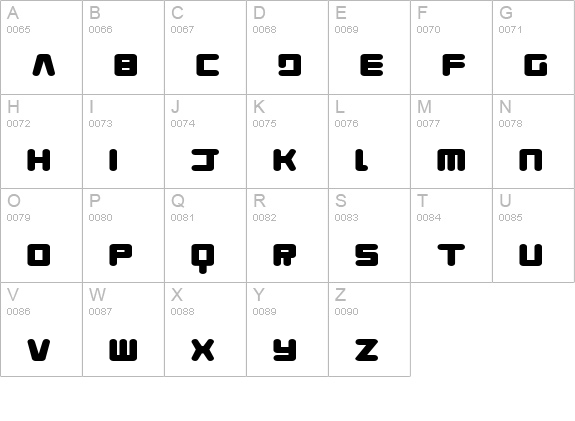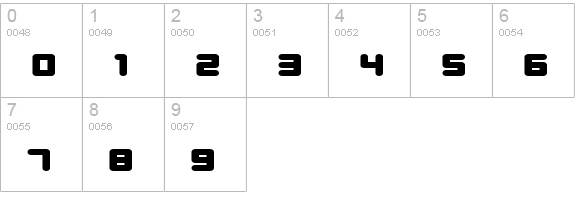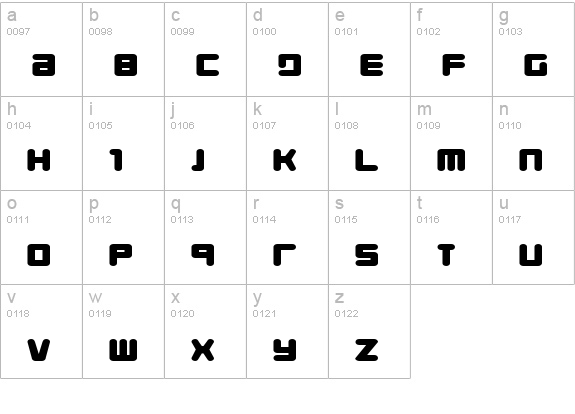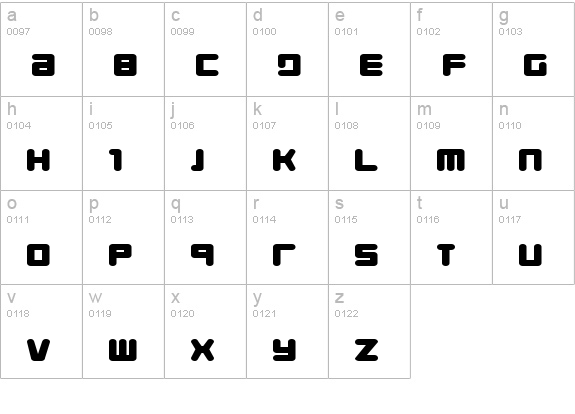
Young Techs Expanded is a distinctive, extended-width variant in the Young typeface family \xE2\x80\x94 well suited to design and typography projects.
Introducing Young Techs Expanded font, a cutting-edge typeface designed for the modern tech-savvy generation. This sleek and stylish font features clean lines and a futuristic aesthetic, making it perfect for a wide range of digital and tech-related projects. With its expanded design, Young Techs Expanded font exudes a sense of innovation and sophistication, setting it apart from traditional fonts. Best of all, Young Techs Expanded font is available for free download at FontsMarket.com. Whether you're working on a website, app, or any other digital design project, this font is sure to make a bold statement and elevate your work to the next level. Embrace the future of typography with Young Techs Expanded font and let your creativity shine.